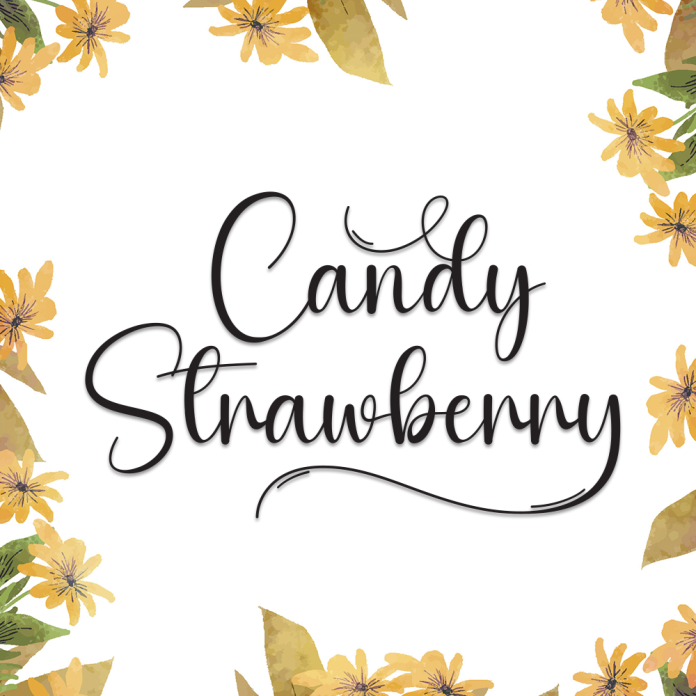
Candy Strawberry is a charming handwritten font full of cheerful personality and delightful curves. With its fun, bouncy strokes and soft, rounded edges, this font brings a sweet and whimsical touch to your creative designs.
Perfect for kids’ projects, birthday invitations, social media quotes, product packaging, greeting cards, and playful branding, Candy Strawberry adds a joyful and heartwarming vibe to every word.
Handwritten style with playful flow
Sweet, rounded characters
Great for fun and informal projects
Let your designs bloom with joy using the adorable charm of Candy Strawberry!